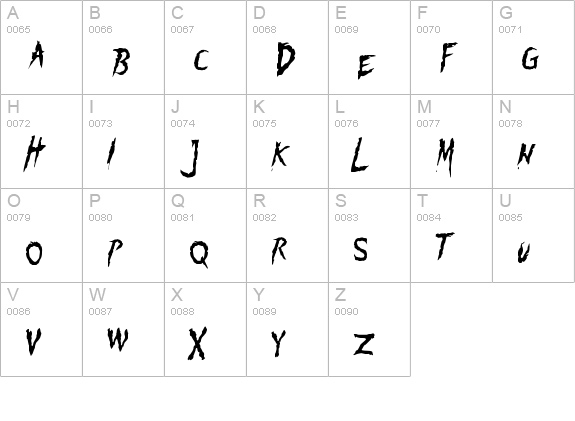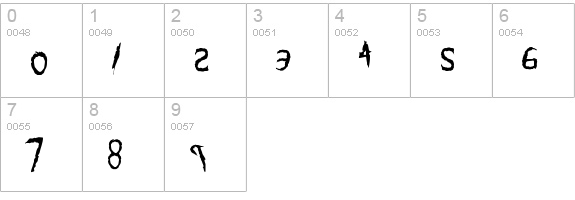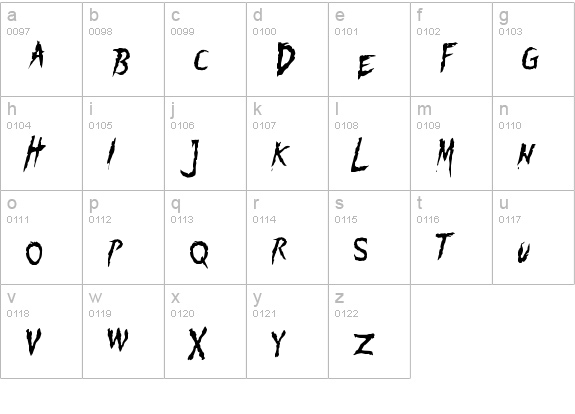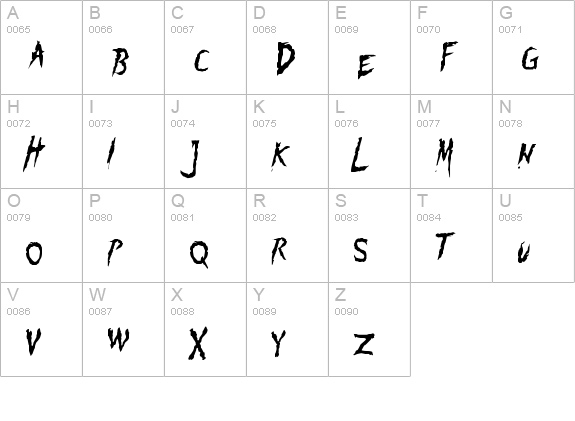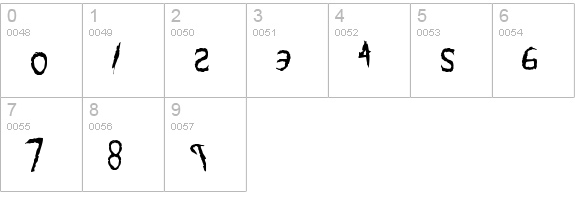
Flogged font embodies a unique blend of modernity and vintage charm, making it a versatile choice for a wide range of design projects. Its bold, yet elegant letterforms exude a sense of strength and sophistication, while its subtle distressed texture adds a touch of character and depth. Whether used for branding, headlines, or graphic design, Flogged font is sure to make a statement and leave a lasting impression. Best of all, Flogged font is available for free download exclusively at FontsMarket.com. This means you can easily access this exceptional typeface without any cost, making it a valuable addition to your font library. Don't miss out on the opportunity to enhance your designs with the unique style and flair of Flogged font – download it today and unleash your creativity!